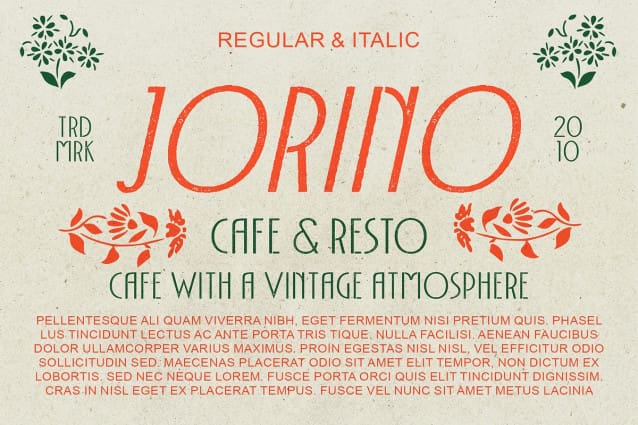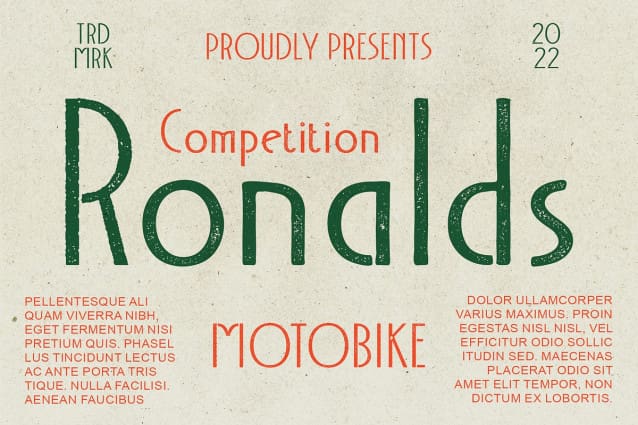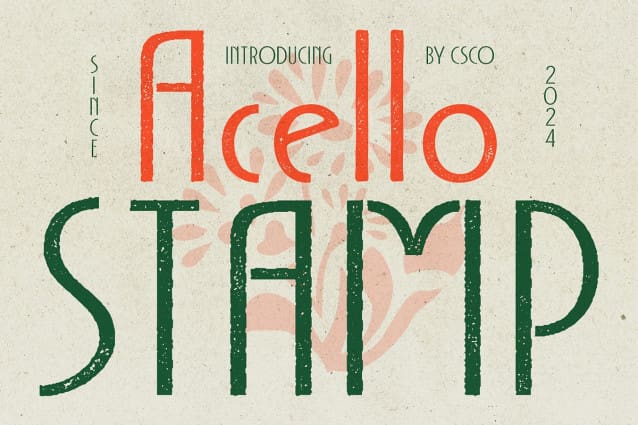
Acello Stamp Font
Acello Stamp Font: Retro Geometric Display Font. Inspired by Art Deco Acello Stamp draws inspiration from the bold geometric forms of the Art Deco movement. Its sleek lines and sharp angles pay homage to the iconic style of the early 20th century.
Vintage Stamp Effect With a unique stamp effect, This font exudes a vintage display vibe reminiscent of old postage marks. This distinctive feature adds character and charm, giving your designs a nostalgic flair.
Geometric Sans Serif Design Crafted with precision, This font features a geometric sans serif design that embodies simplicity and elegance. Its clean lines and minimalist aesthetic make it versatile for various design applications.
Perfect for Retro Projects Ideal for retro-themed projects, This font brings a touch of nostalgia to your designs. Whether used in branding, posters, or packaging, its Art Deco-inspired style adds a timeless appeal.
Fusion of Past and Present This font seamlessly blends the geometric elegance of Art Deco with a vintage stamp effect, resulting in a font that transcends time. Its versatility and nostalgic charm make it a must-have for designers seeking to evoke a sense of retro sophistication in their projects. Step into the world of This font and experience the allure of vintage typography.